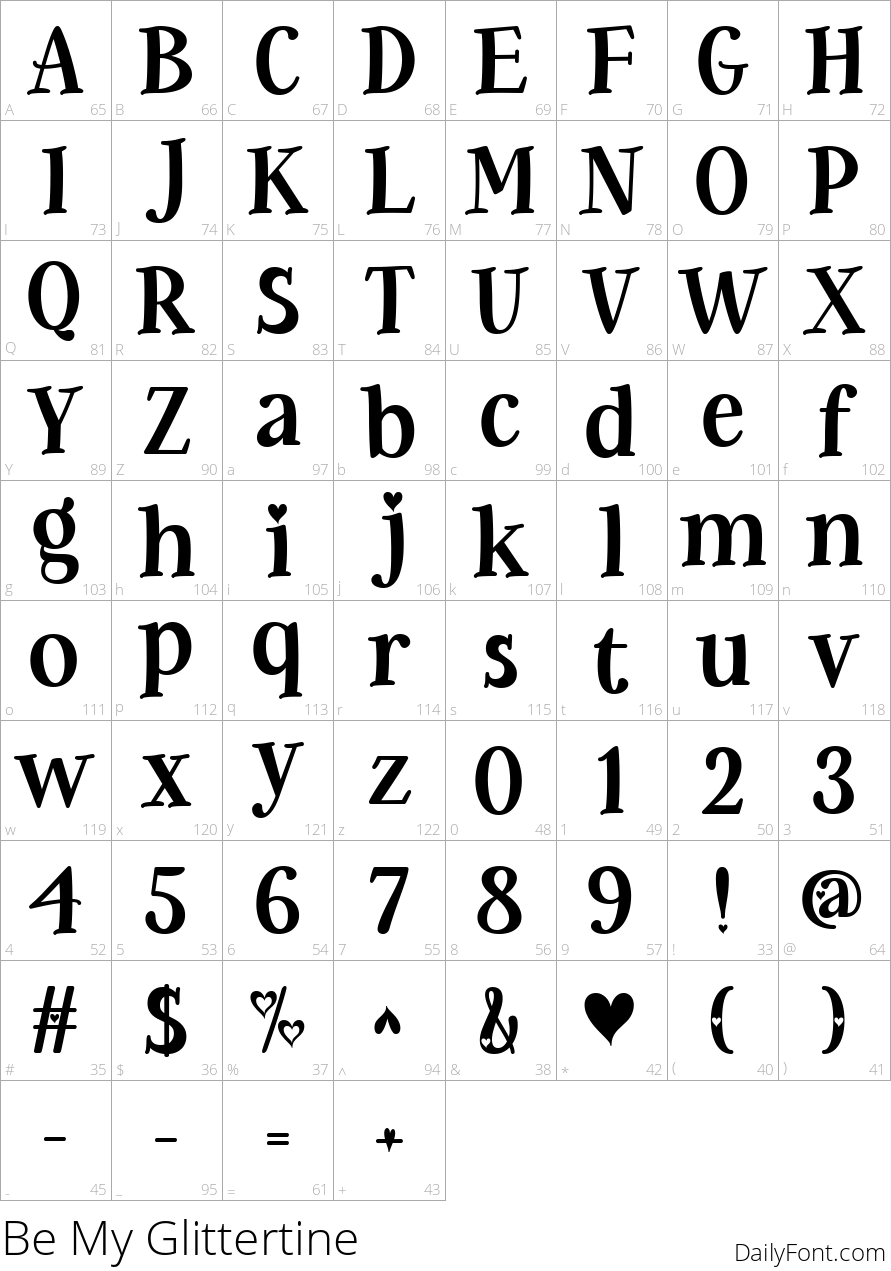
Be My Glittertine
Looking for a font that exudes warmth, playfulness, and romance? Search no further! We've got just the thing - a delightful serif font that's perfect for Valentine's Day-themed designs or any project that requires a dash of whimsy.
This charming font features bold lines, rounded edges, and intricate details that evoke the feeling of handwritten script. Its playful nature makes it ideal for creating eye-catching headlines, captions, and quotes that will capture attention and charm the heart.
With its unique blend of modern and vintage elements, this font is sure to add a touch of magic to your designs. Whether you're working on a wedding invitation, a romantic poem, or a festive greeting card, this font's bold yet elegant style will bring joy and warmth to your project.
So why settle for ordinary when you can sparkle with this extraordinary font? Perfect for Valentine's Day-themed projects, as well as any design that requires a playful touch of love and whimsy.